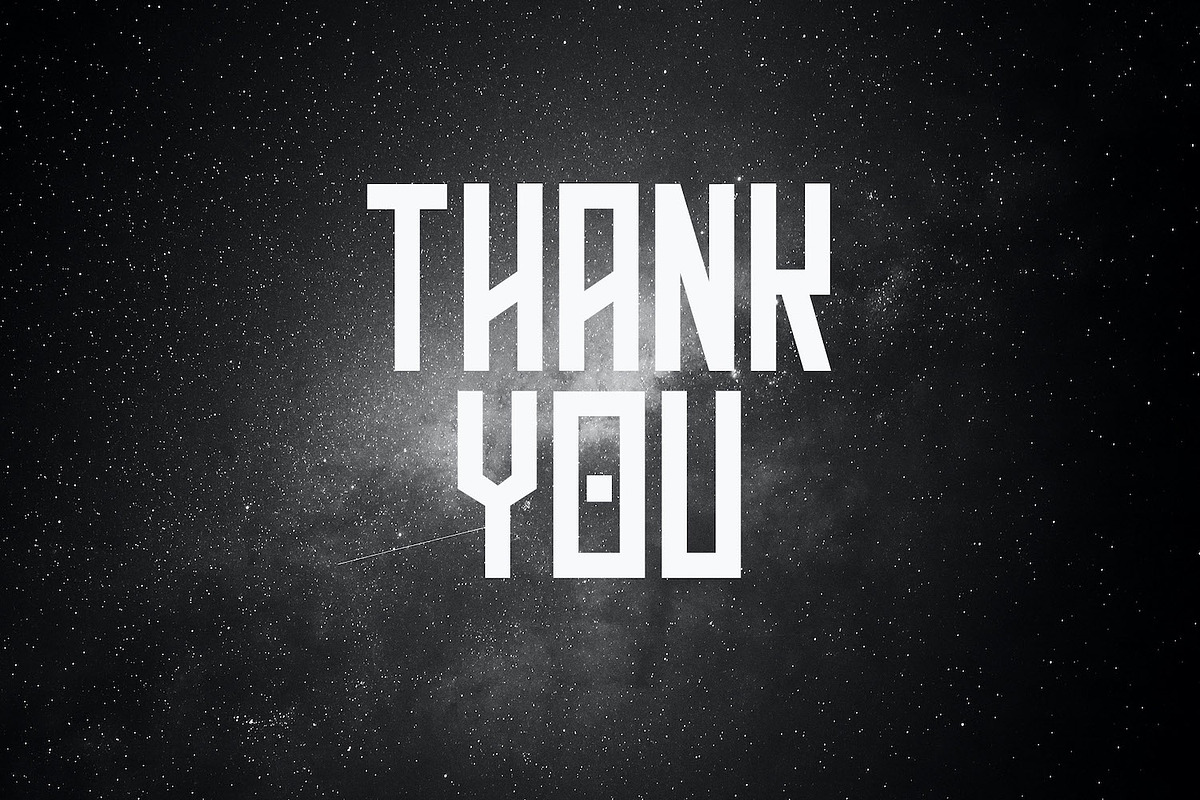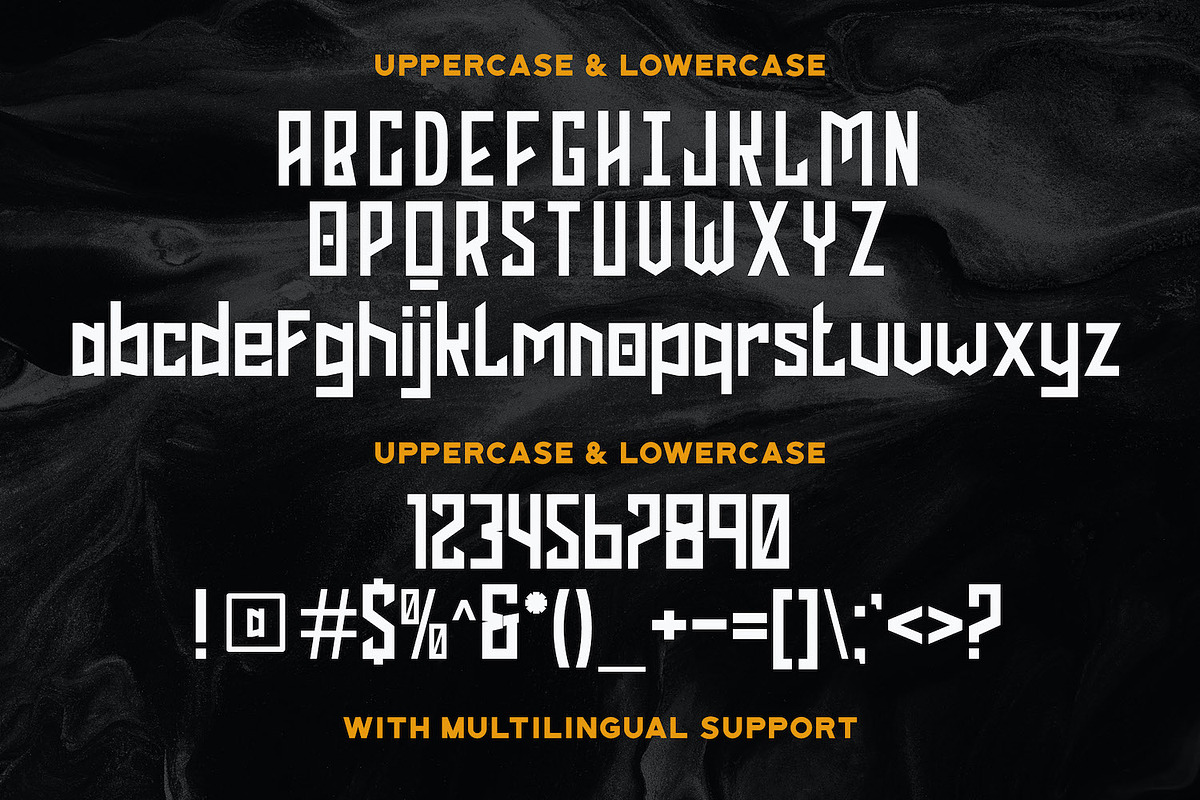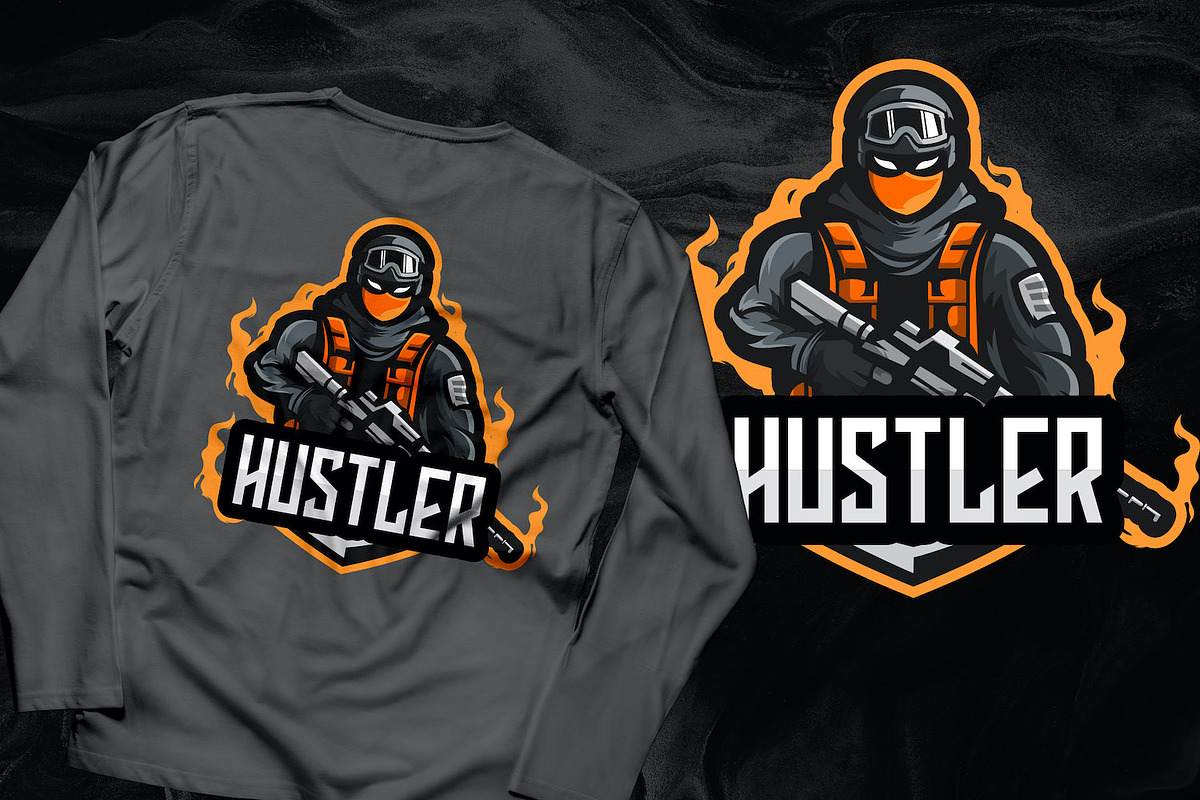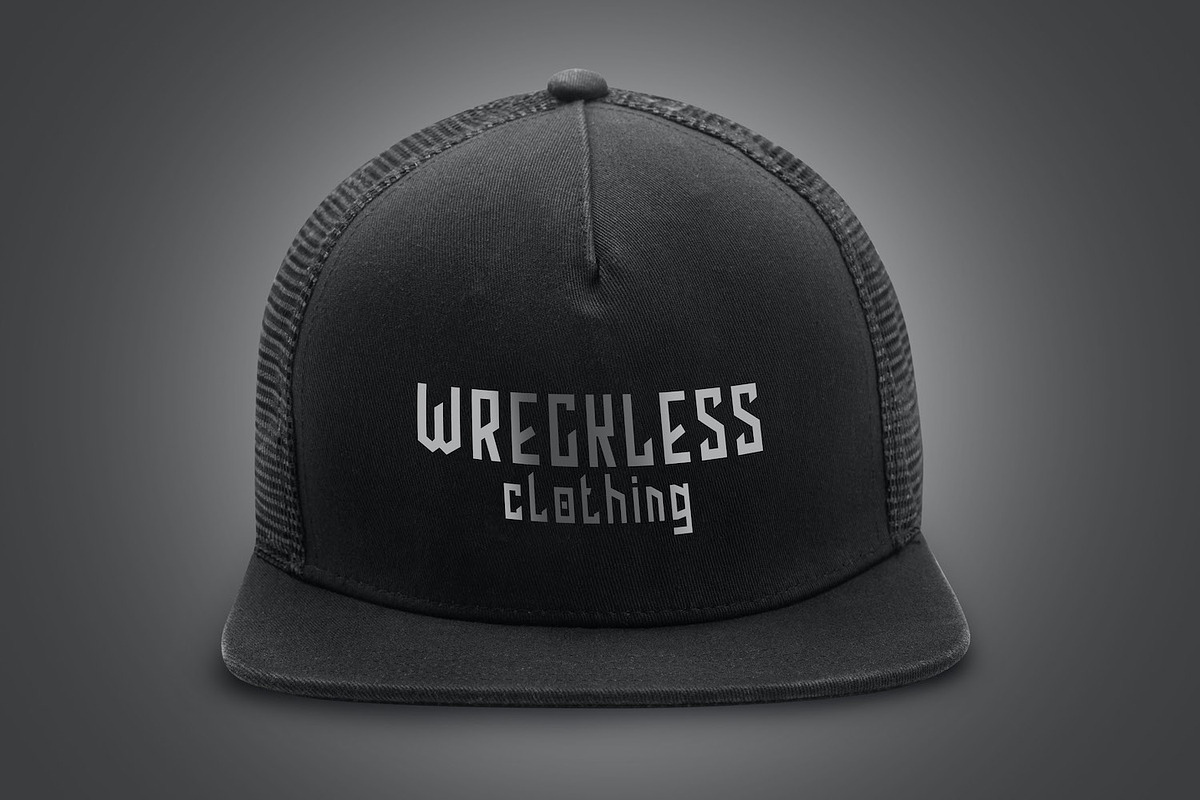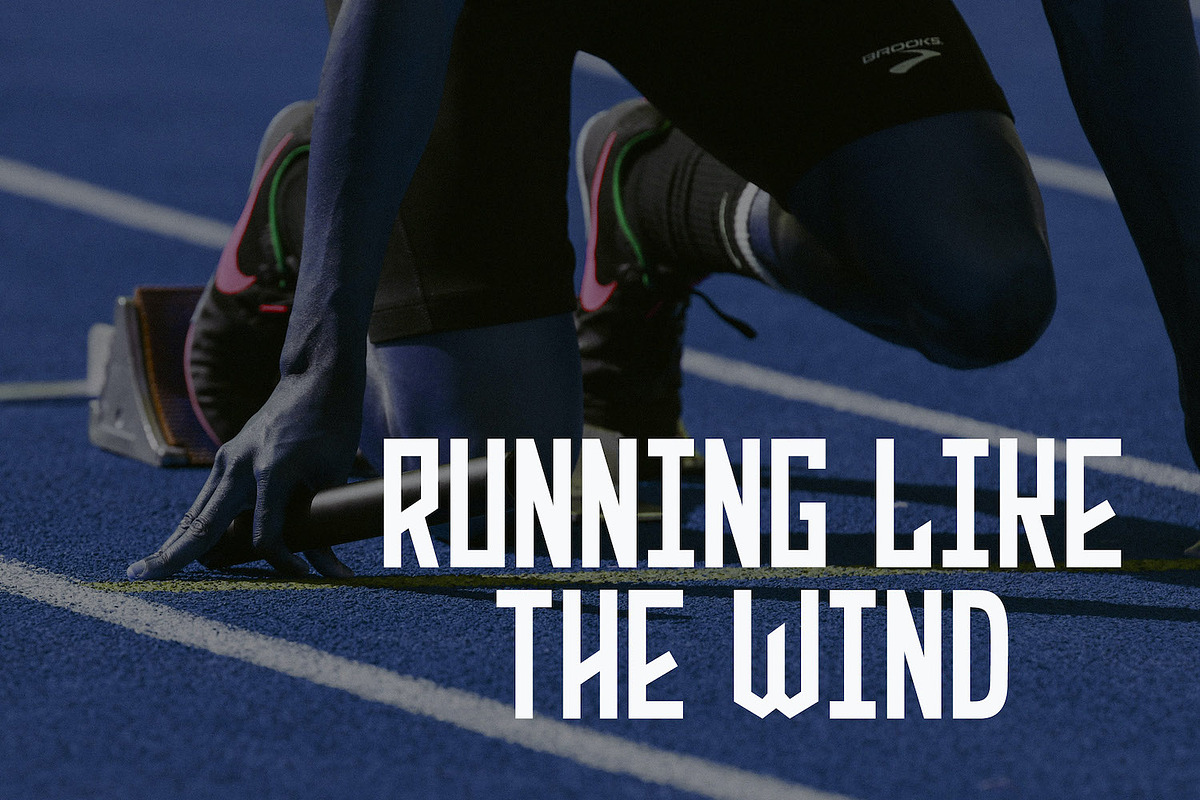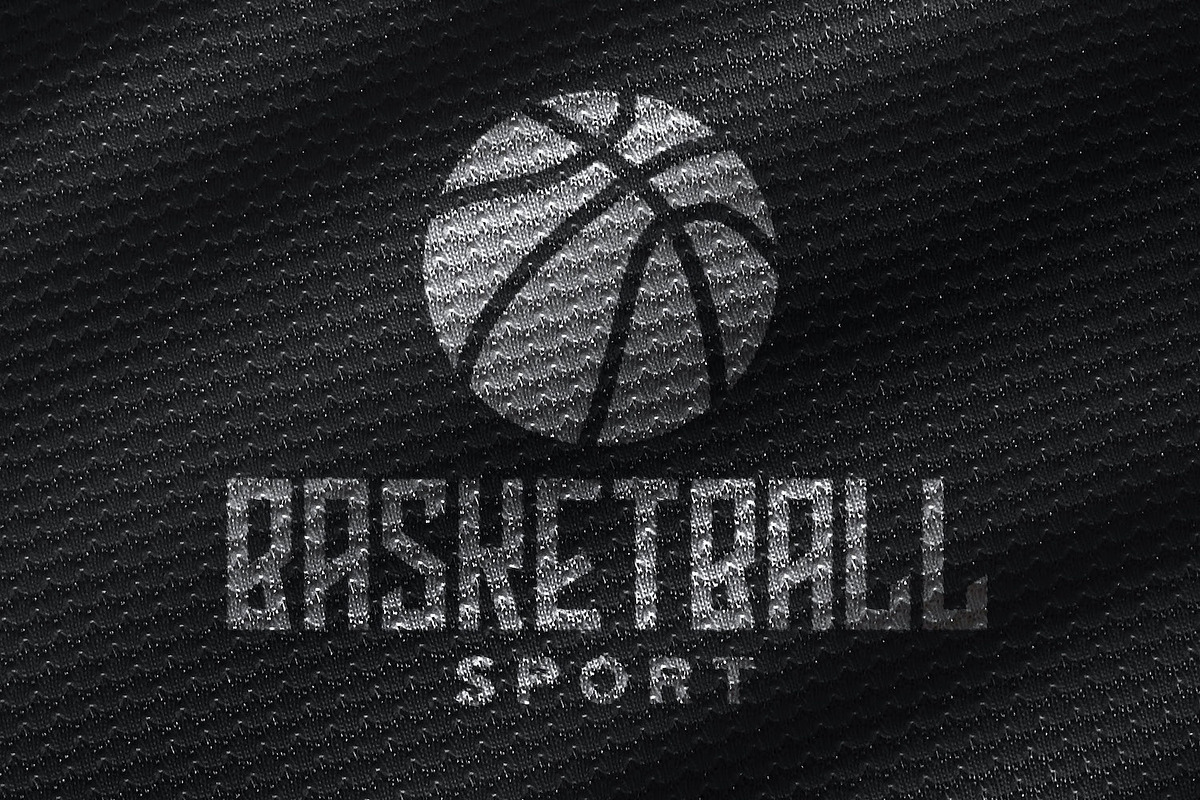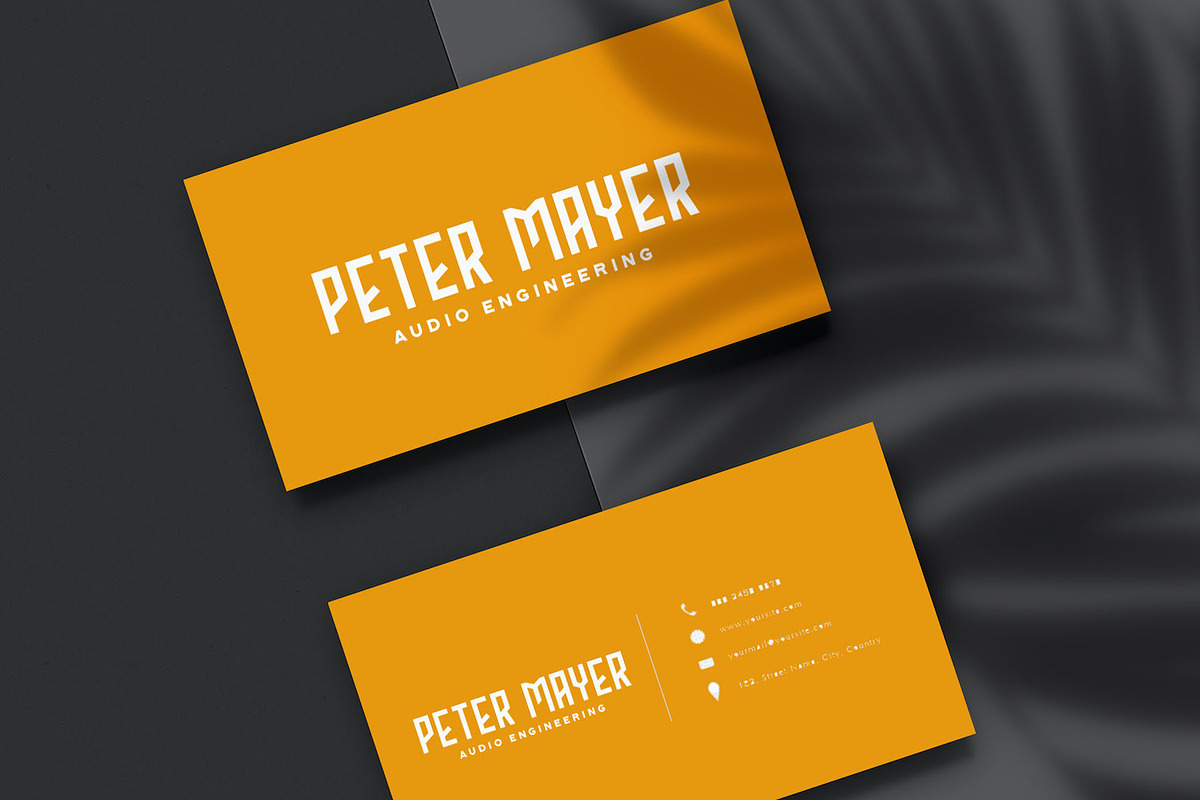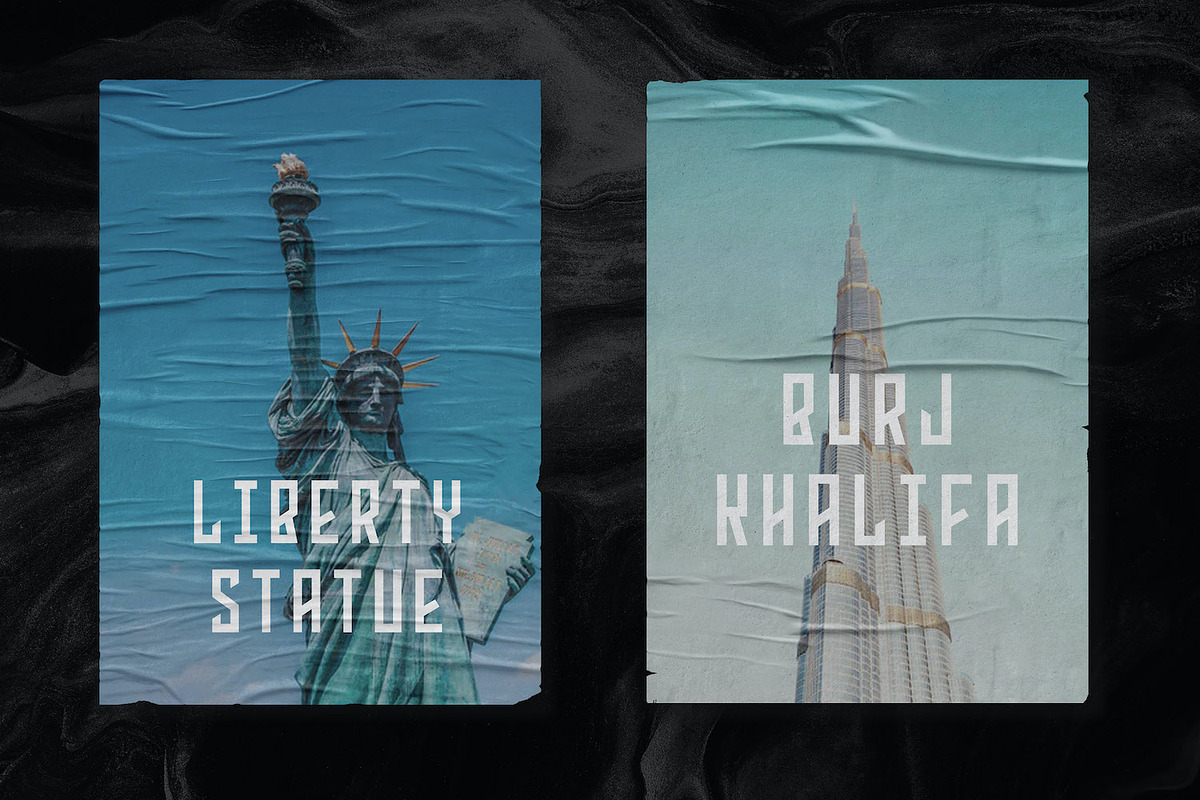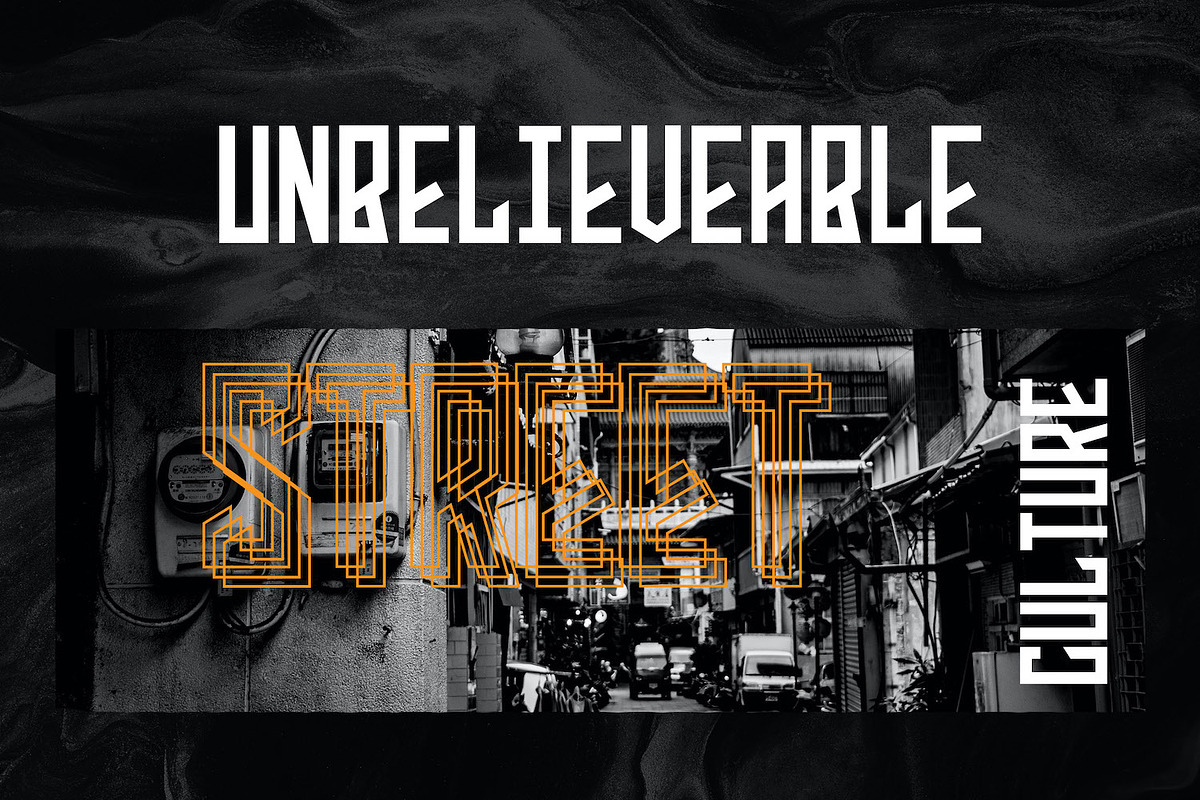
Phoenix Squad - Modern Display Font
Introducing Phoenix Squad - Modern Display Font
Phoenix Squad is a modern futuristic font with a bold feel. It will add a contemporary update to any design project. On top of everything, it has a techno feel to it, making it ideal for titles and UI.